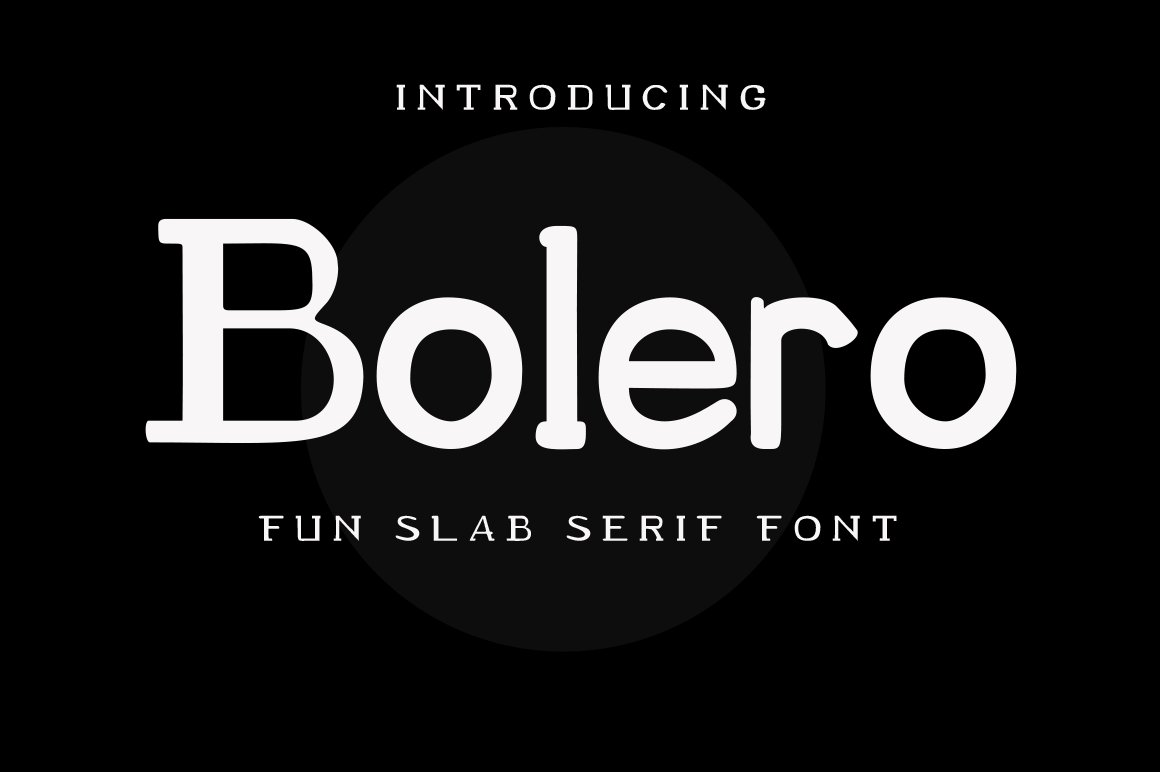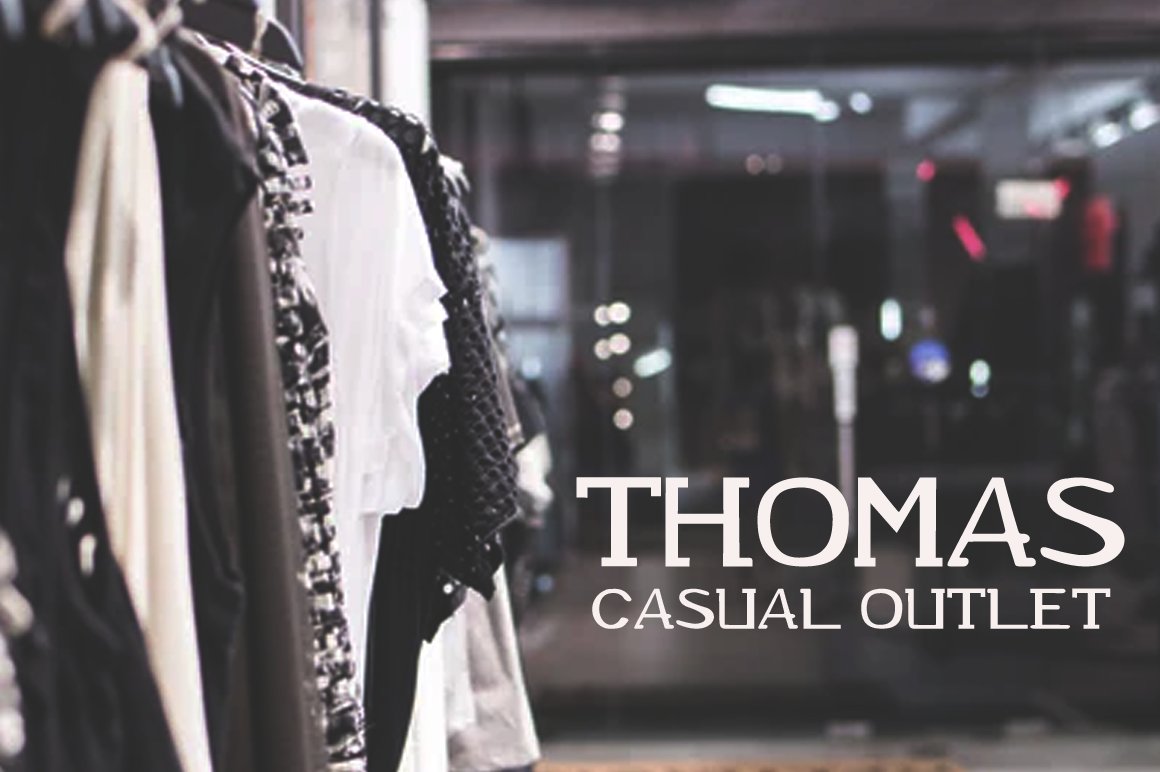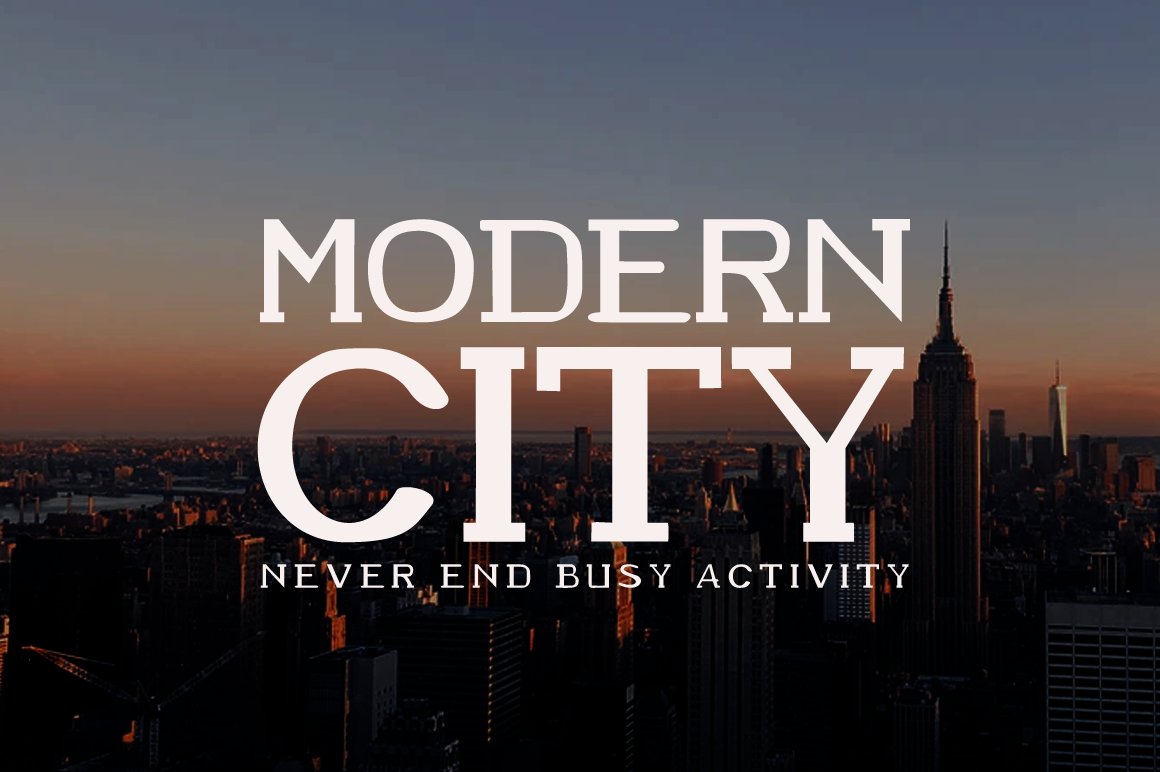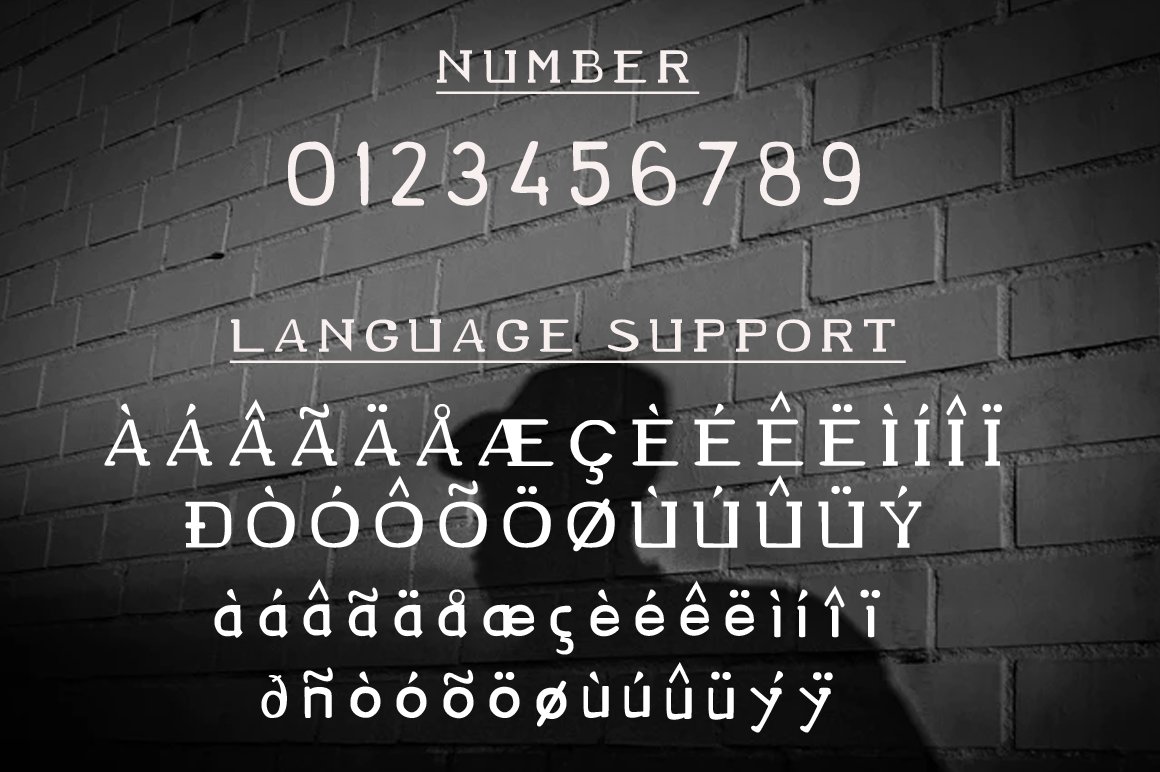
Introducing a cute handwriting"Bolero"Fun Slab-Serif Font! If you are needing a touch of casual modern Slab-Serif for your designs, this font was created for you! What's Included: Uppercase and Lowercase Number and Punctuation Support Language All above mentioned available in (TTF + OTF) This font works best in a program that supports OpenType features such as Adobe Indesign, Adobe Illustrator CC and CS, or Adobe Photoshop CC and CS also CorelDraw More Questions? Here are some (potential) answers! Do not to resell this font in any way. Multilingual Support is included for Western European Languages Have a Wonderful Day, Gatra Std